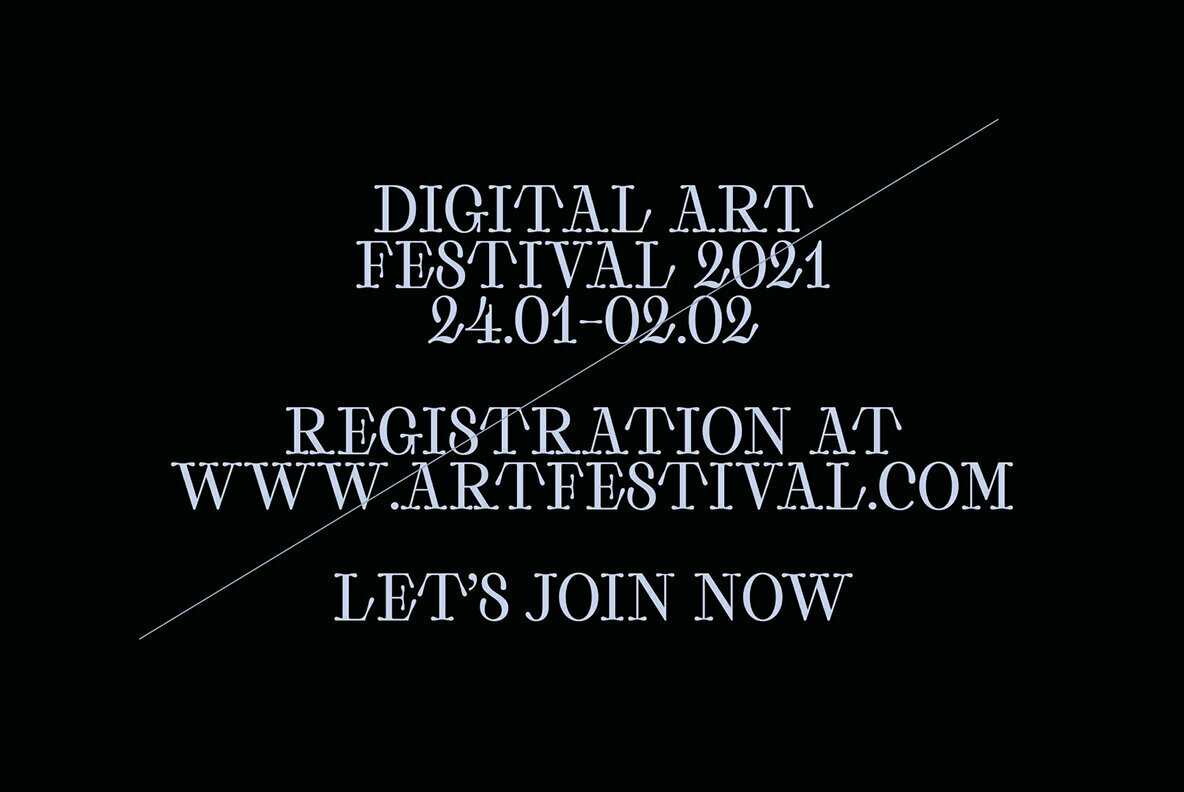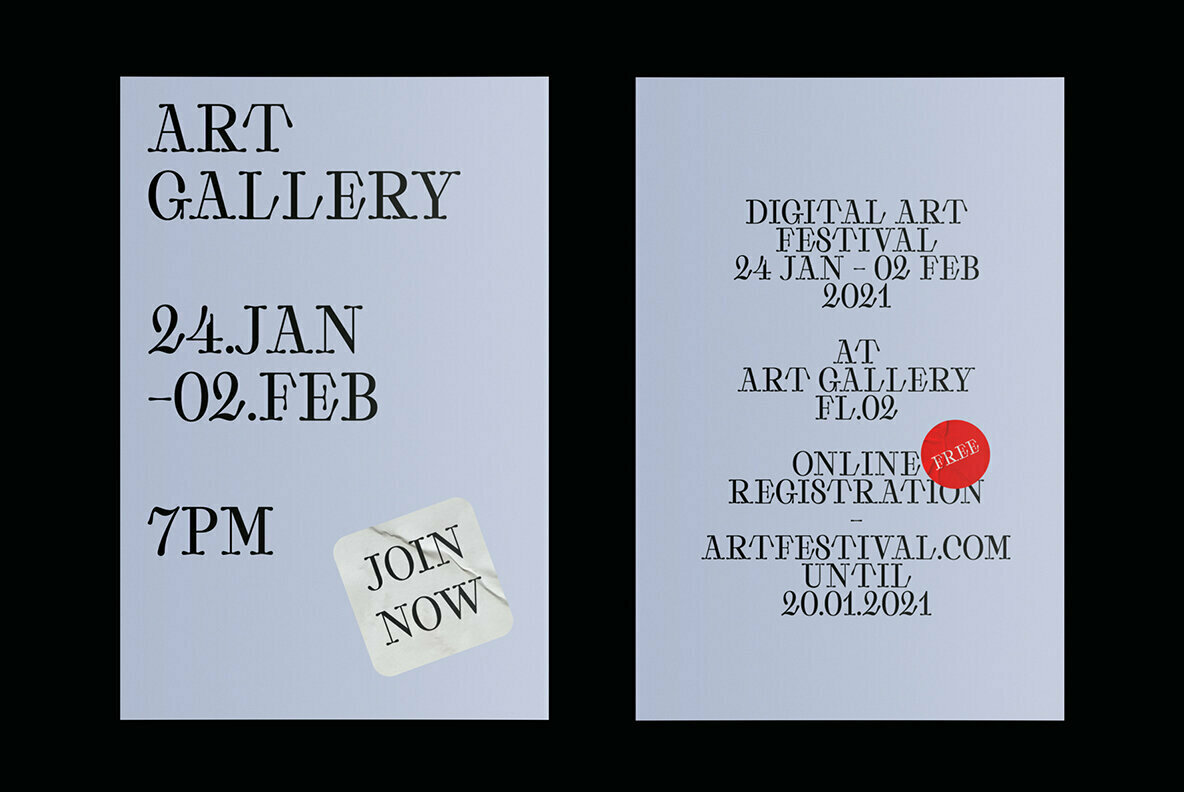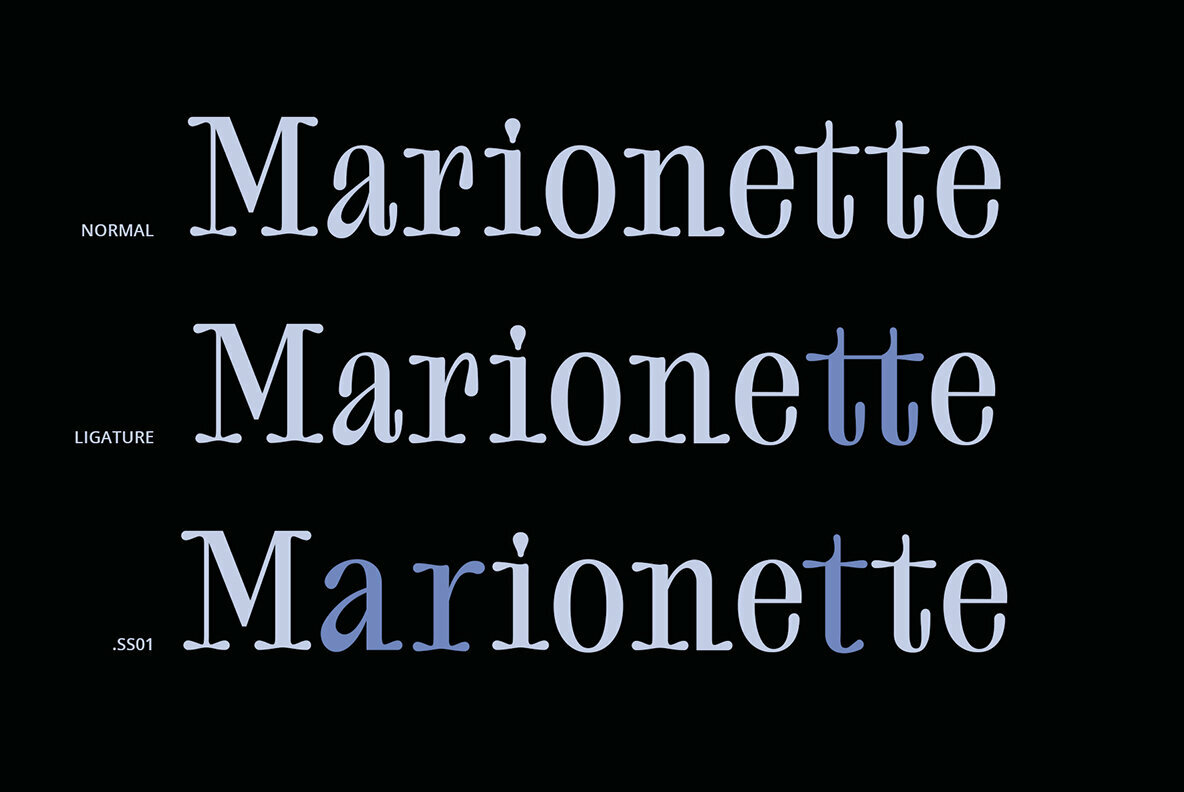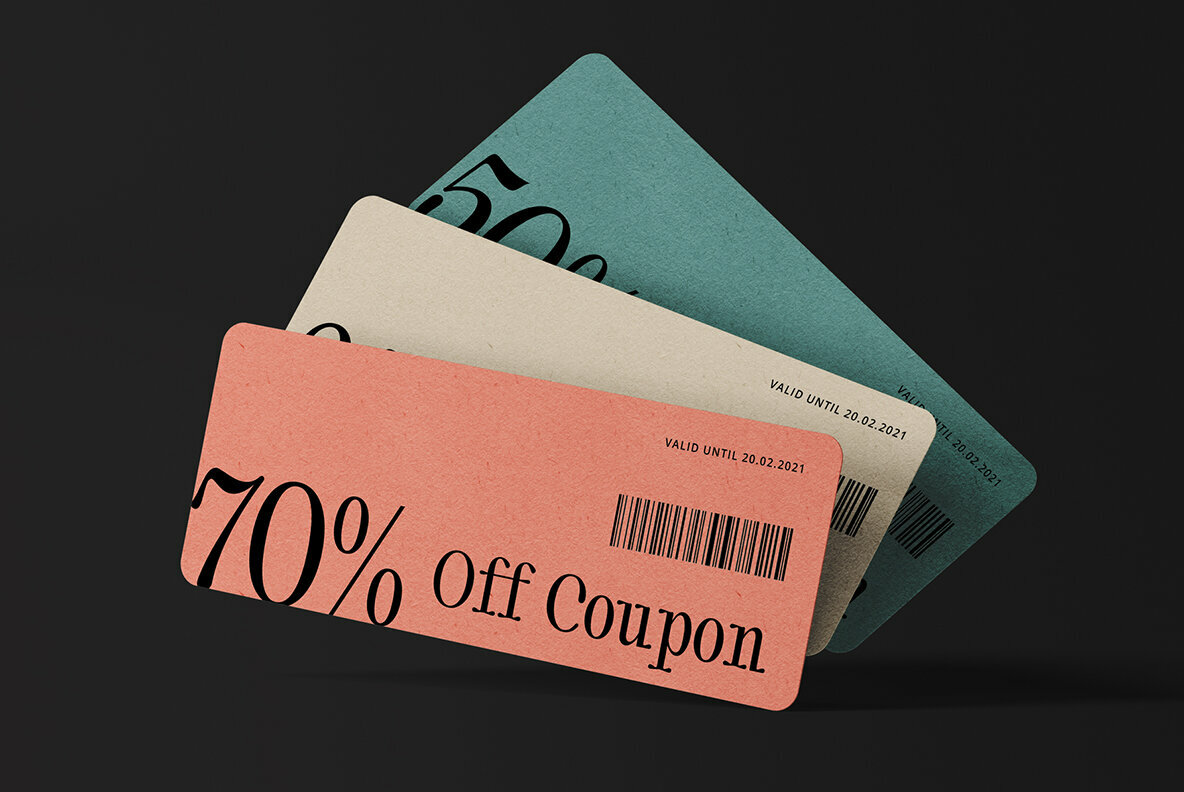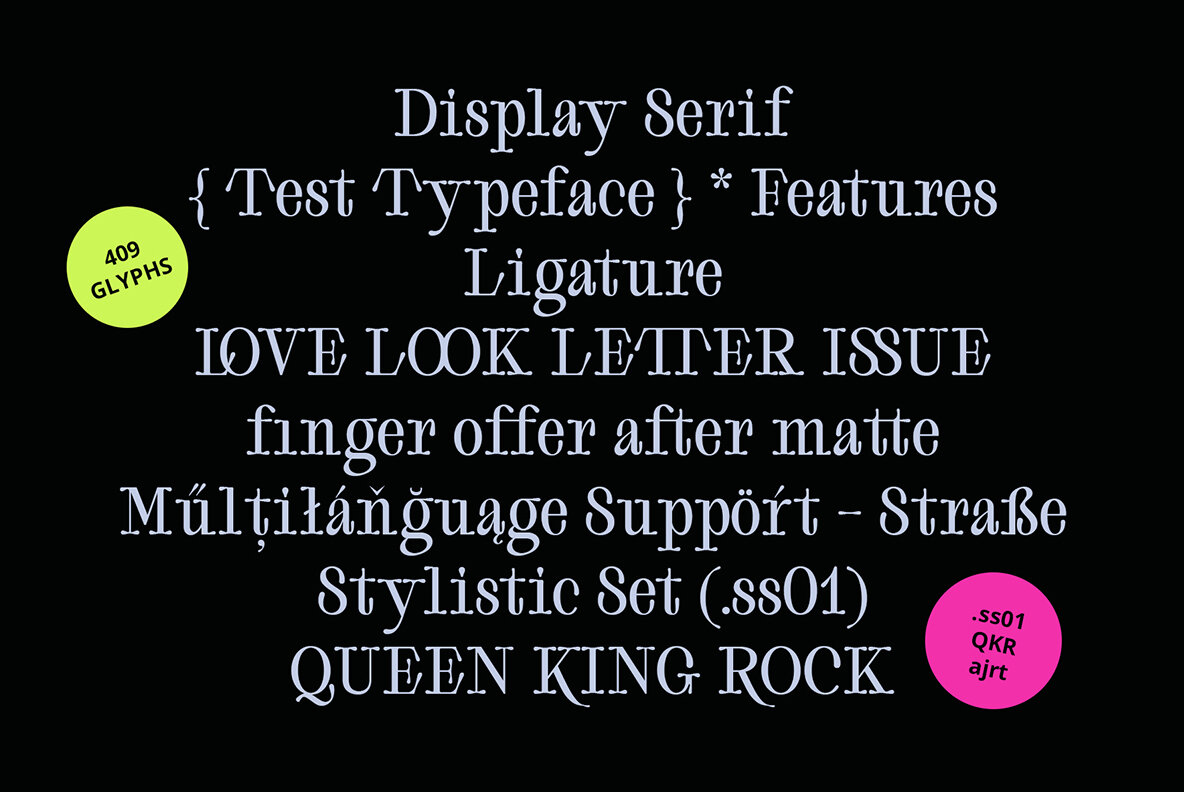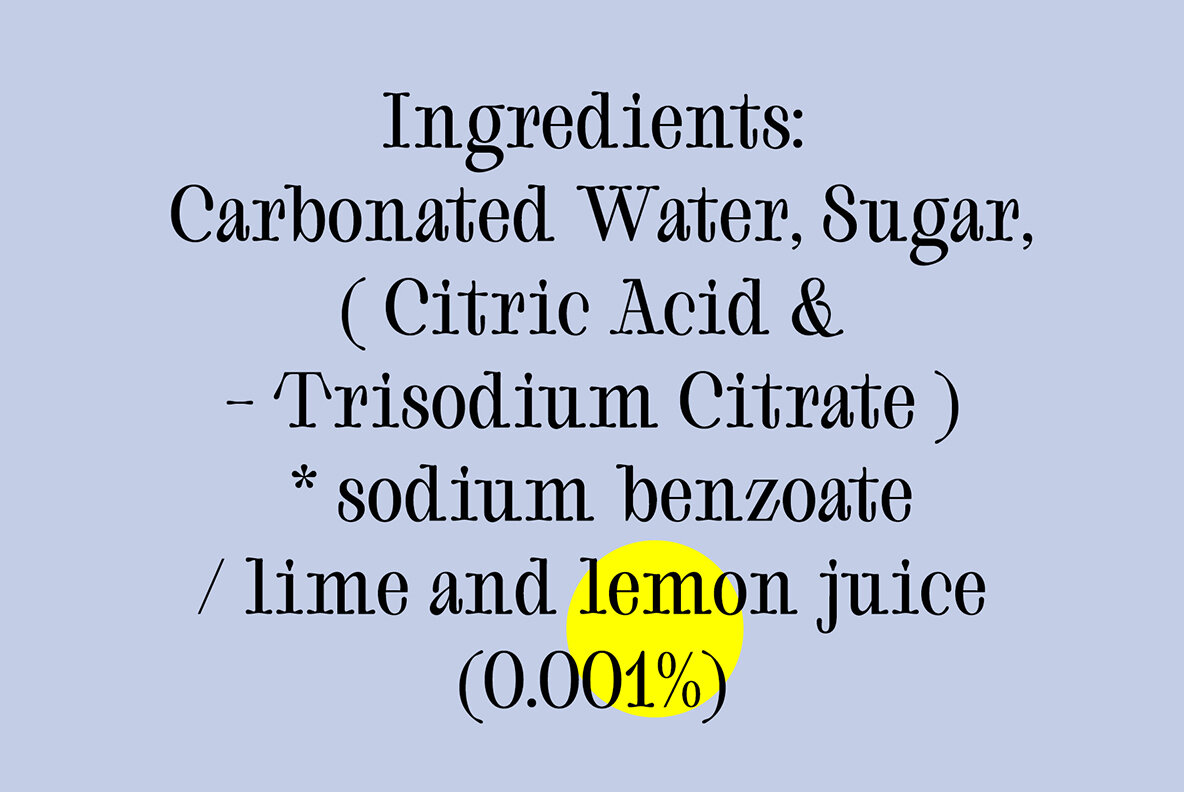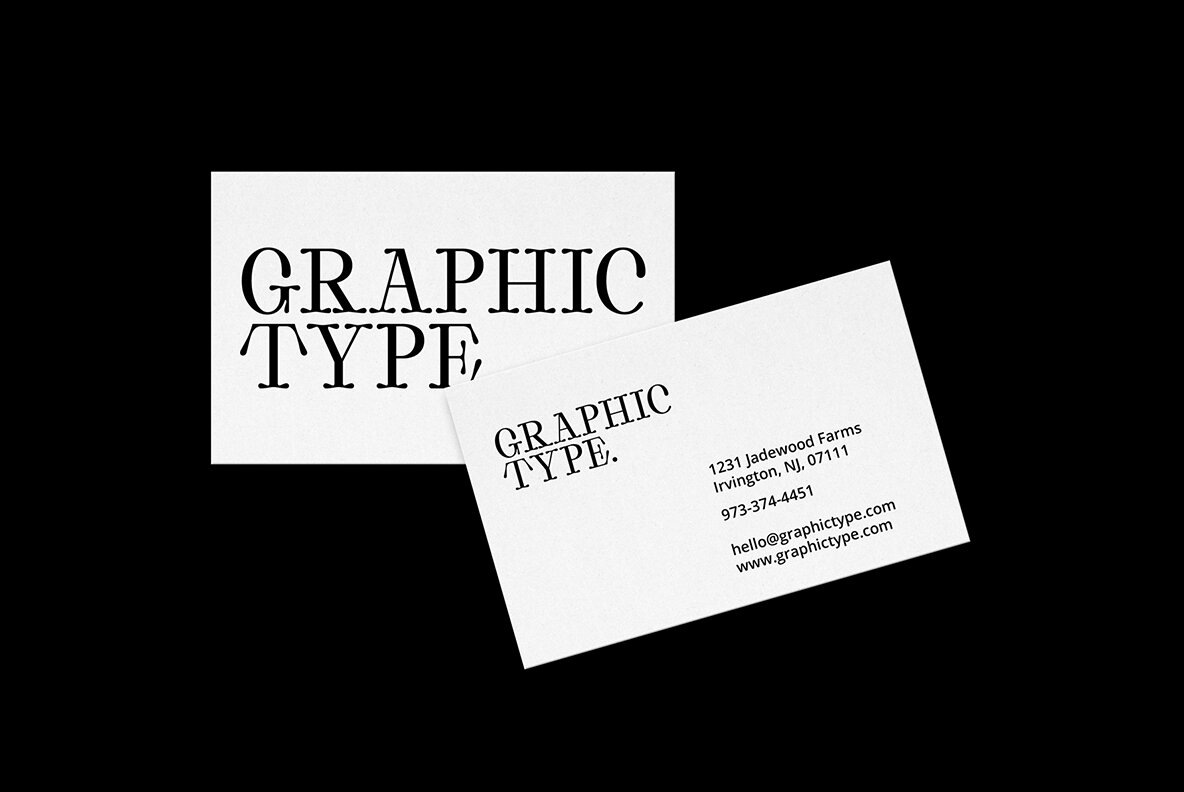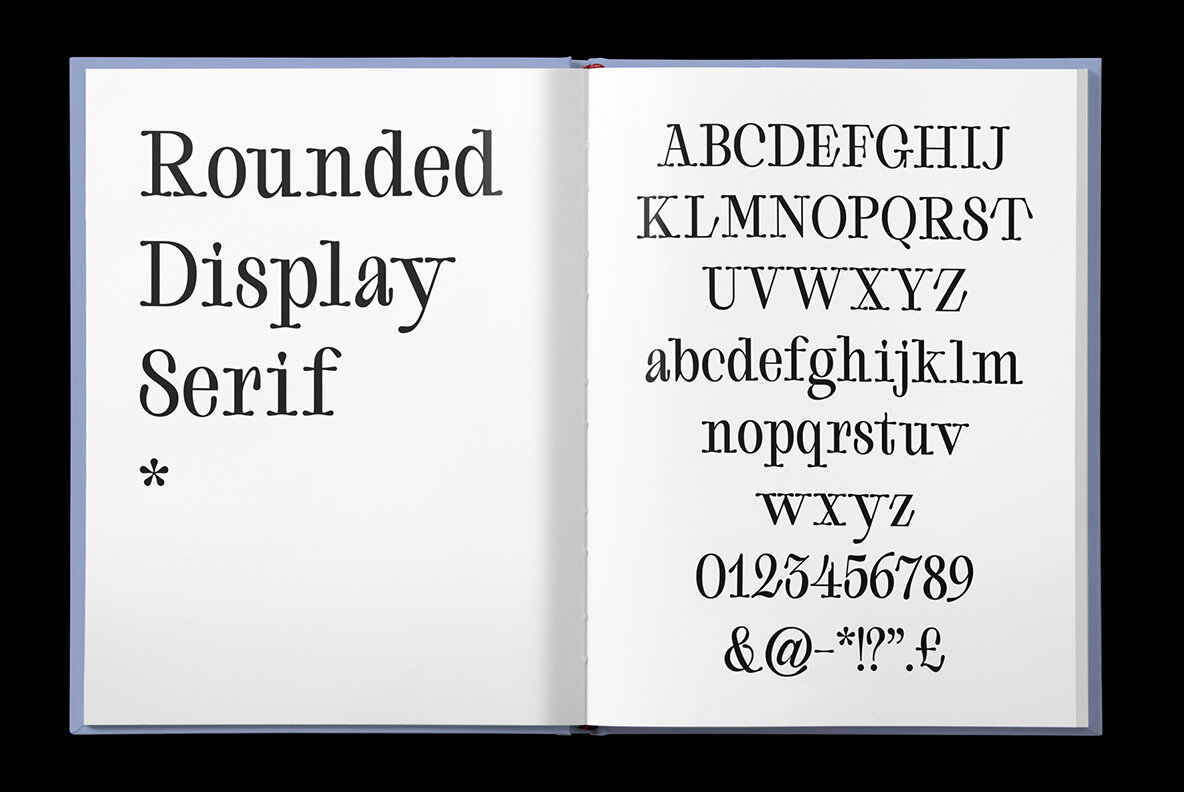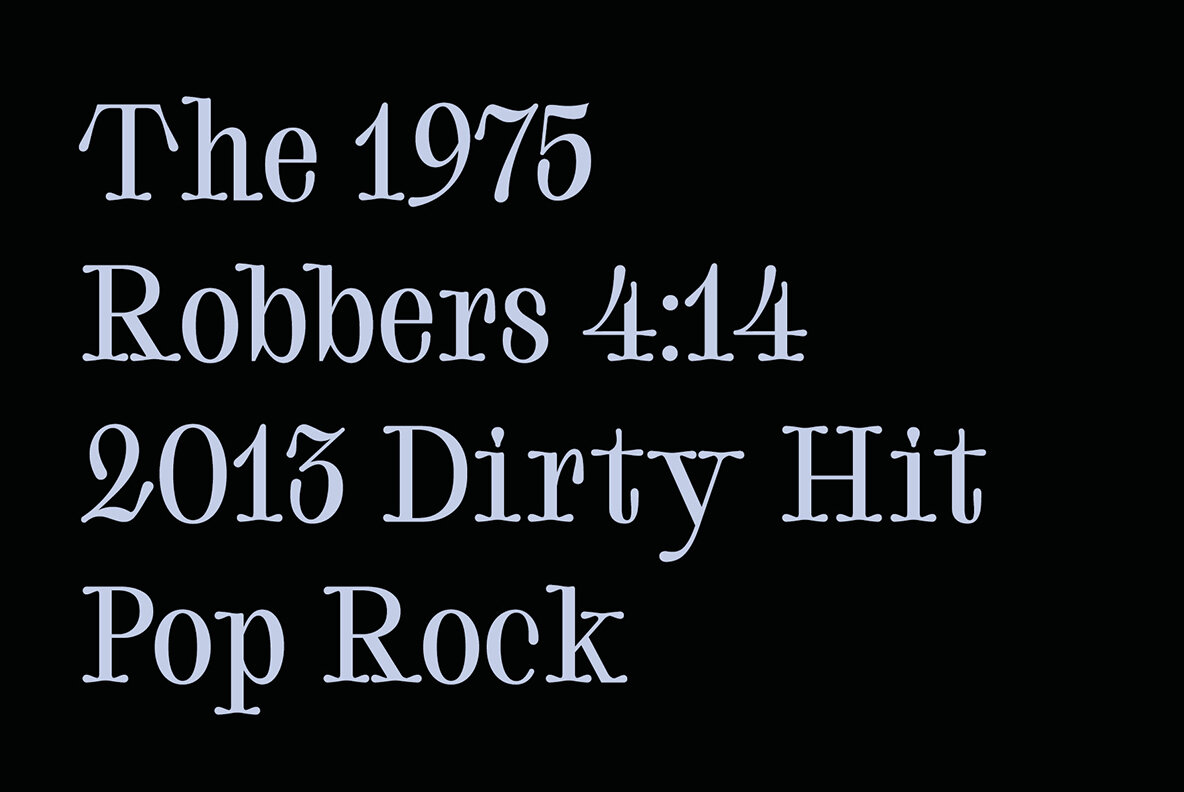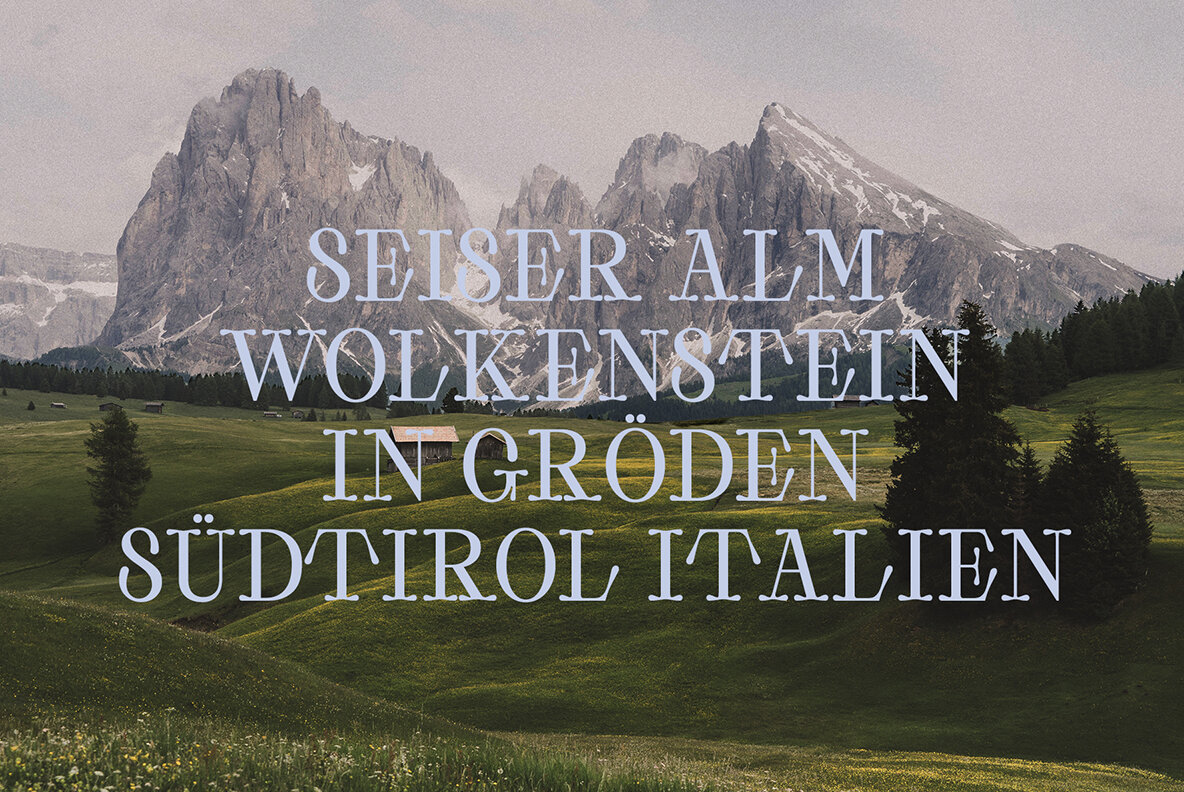
ED Eklutna is a serif display font with a rounded style that gives it a unique, retro and modern look. It has several features such as alternative characters, ligatures and multi-language support that makes it easy to use and combine with other fonts.